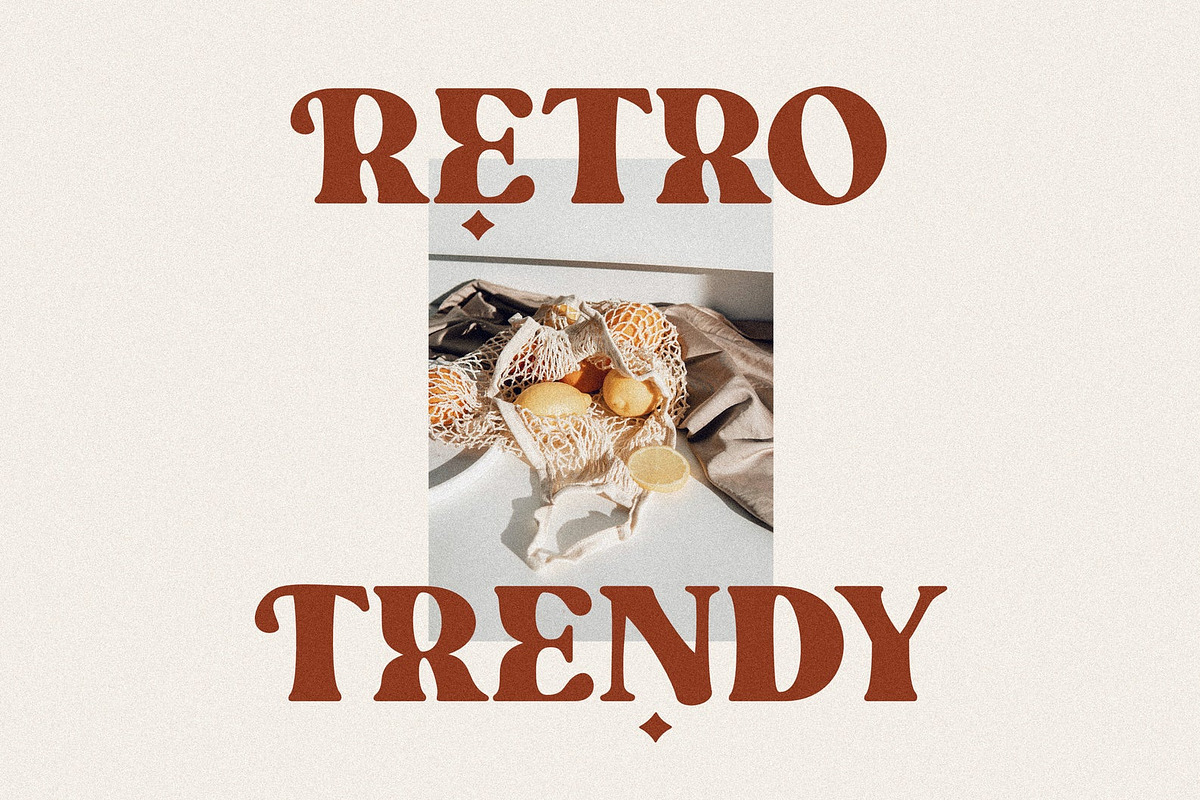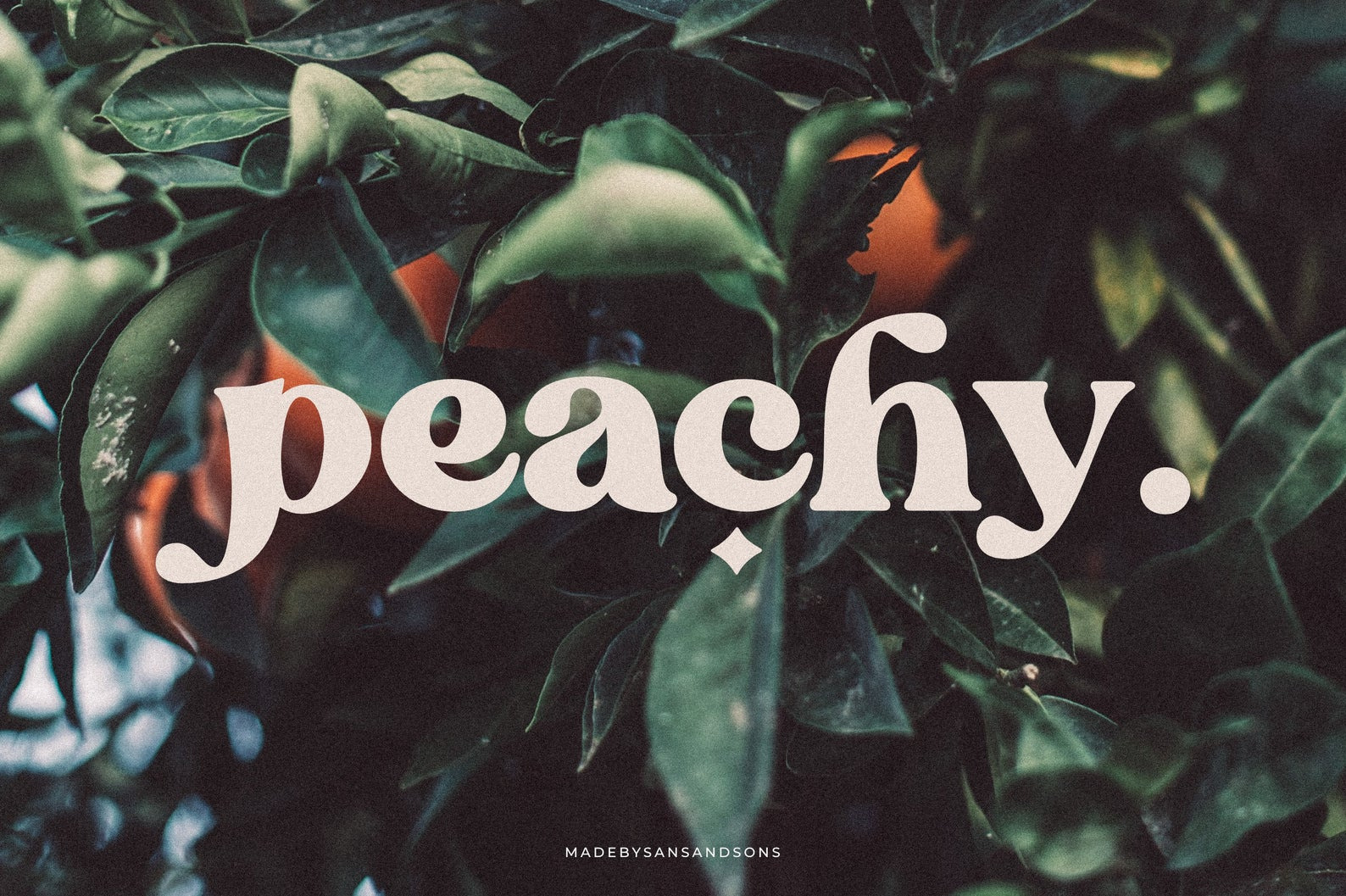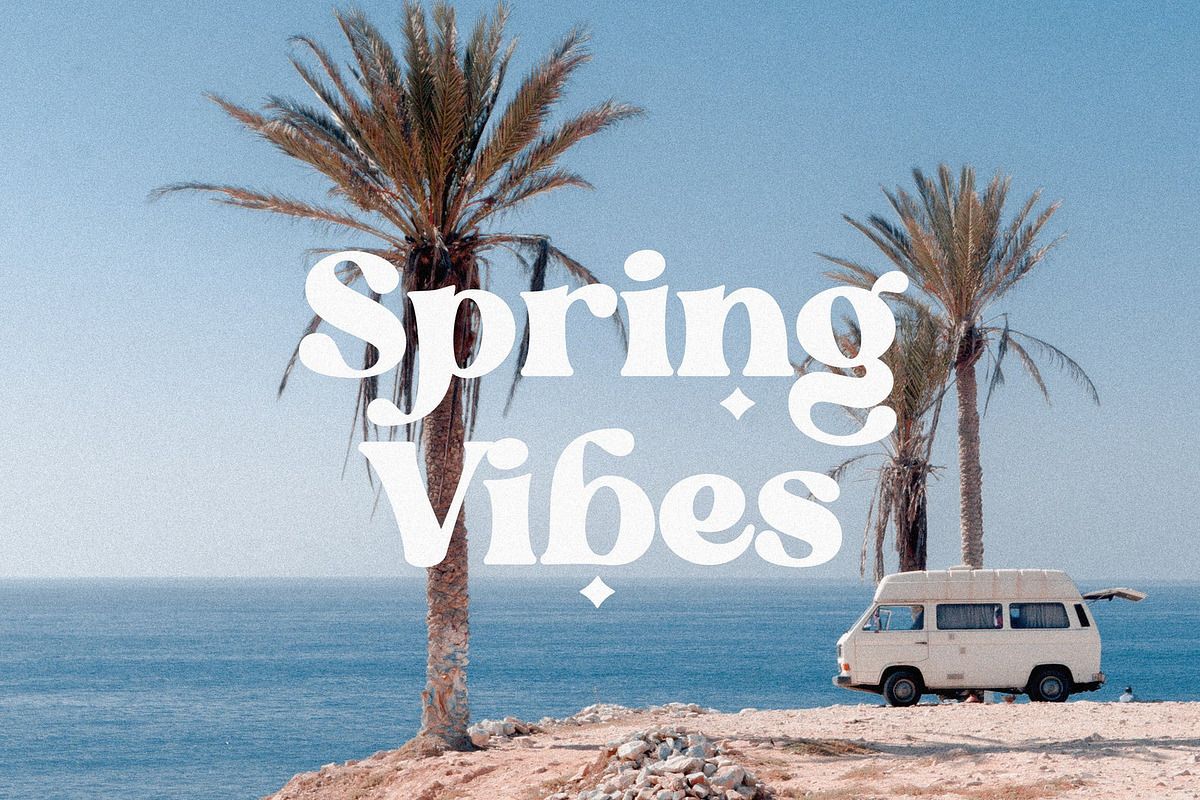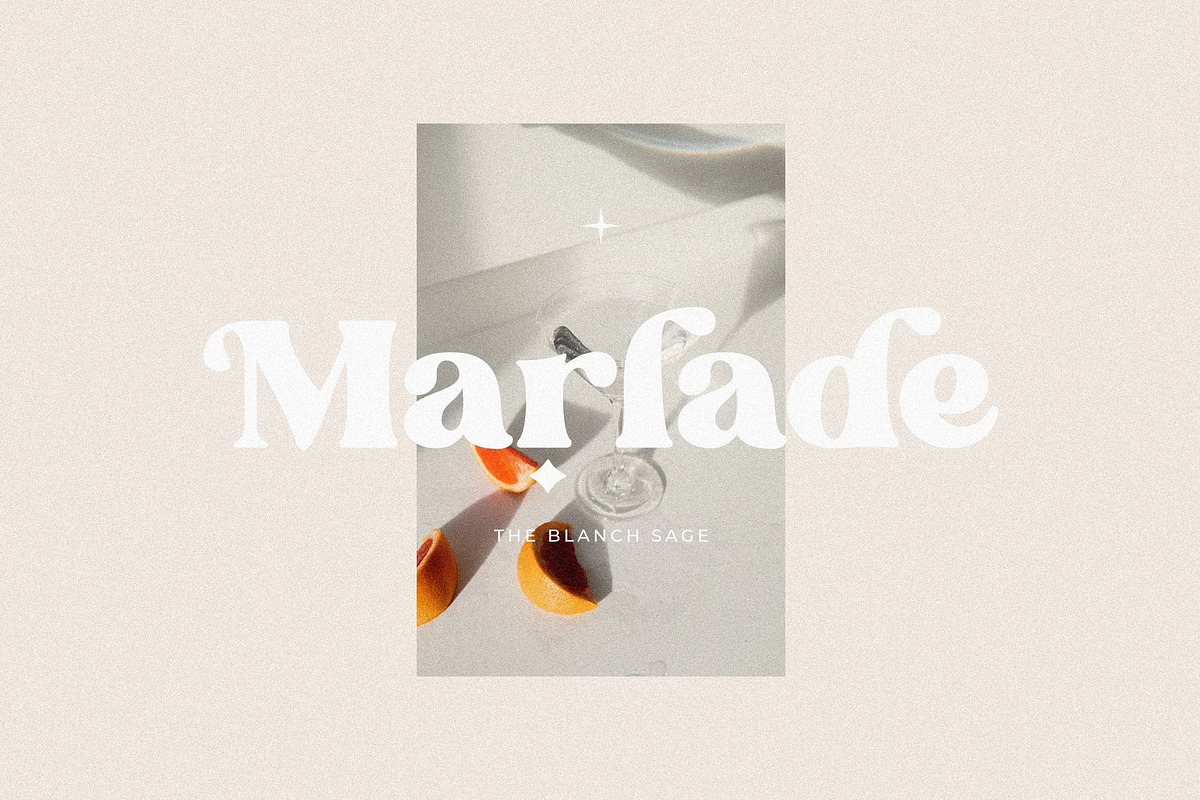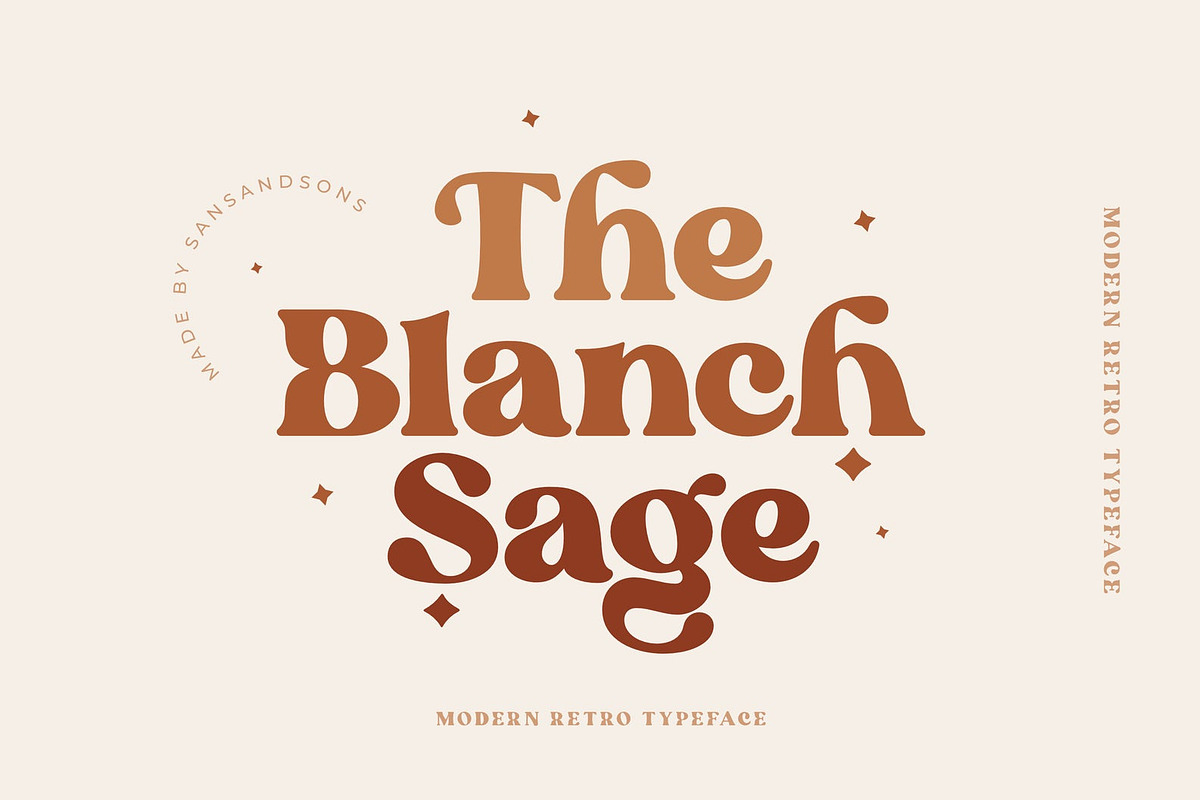
Blanch Sage - Retro Font
Blanch Sage - Modern Retro Font by Sans and Sons
introducing our new "Blanch Sage" Modern Retro with Fun and Elegant Style is perfect for branding, logos, invitation, master heads, and more.